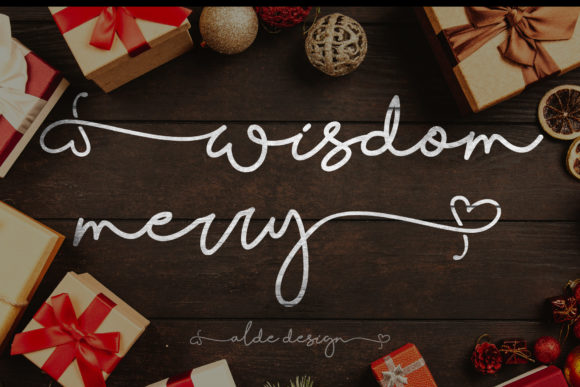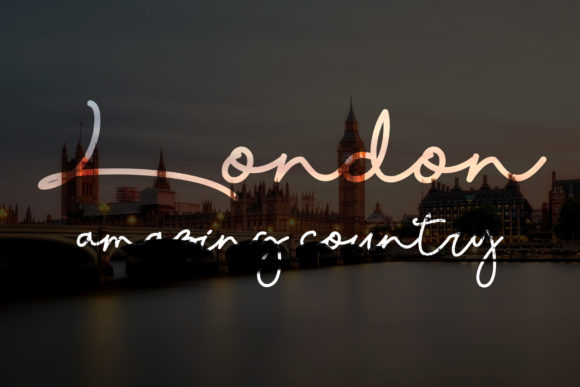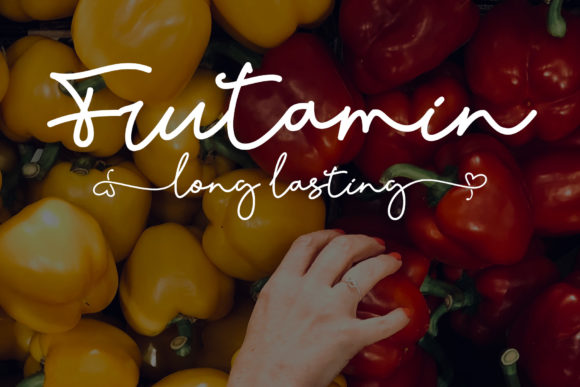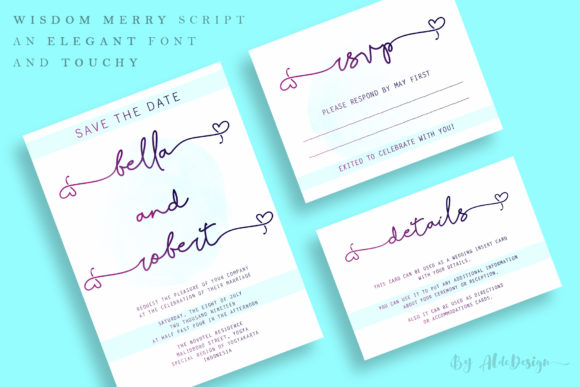
Wisdom Merry Font
About Wisdom Merry Font
Wisdom Merry is a font with an incredibly sophisticated and classy feel. It has a natural, yet elegant touch and great legibility.